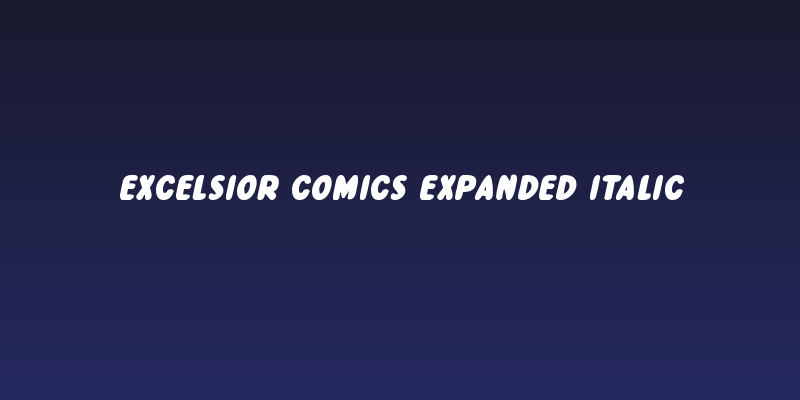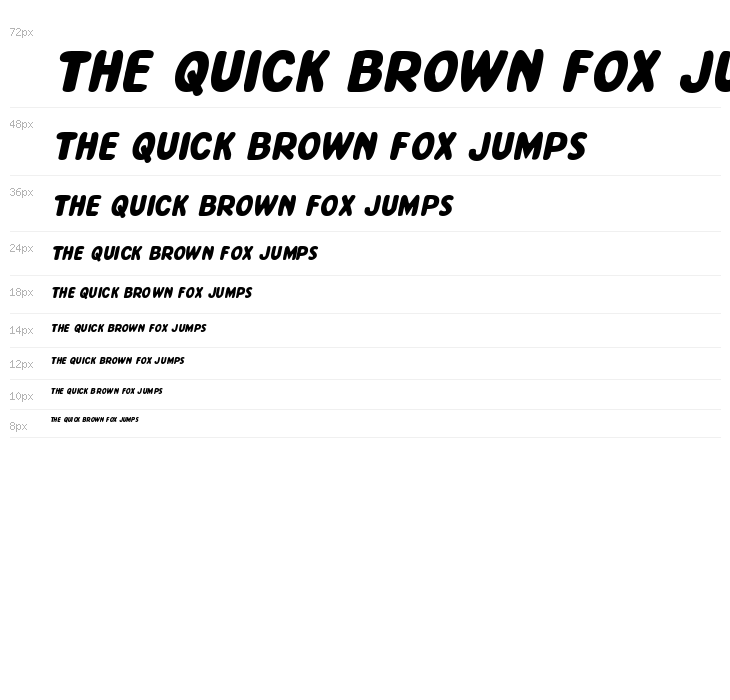
Excelsior Comics Expanded Italic Font
Excelsior Comics Expanded Italic Description
This font features a bold and playful style with an expanded and italicized form. The characters are rounded and have a smooth, flowing appearance, giving them a friendly and approachable feel. The uppercase and lowercase letters maintain a consistent width, contributing to a cohesive look. The numbers and special characters share the same boldness, ensuring uniformity across all glyphs. The italic slant adds a dynamic touch, making it suitable for creative and informal designs. The expanded width allows for greater readability, even at smaller sizes.
| Overall Style | Playful and Dynamic |
| Proposed Projects | Ideal for comic books, children's books, playful branding, and creative posters. |